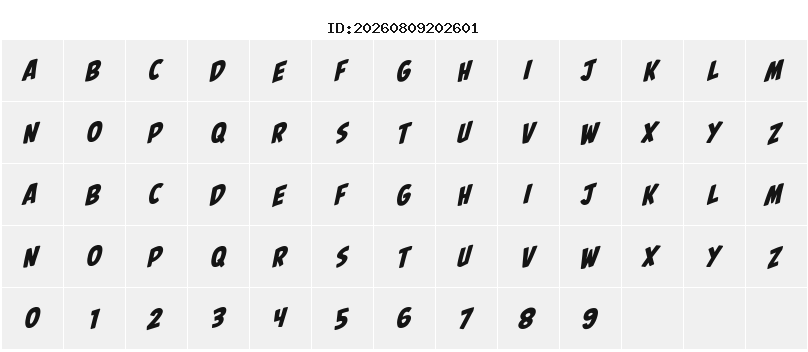
• Font Name: Palooka BB
• Designer: Nate Piekos
Palooka BB.ttf is a modern, elegant sans-serif font designed for ultimate readability and visual harmony. Perfect for branding, headlines, web design, and print materials.